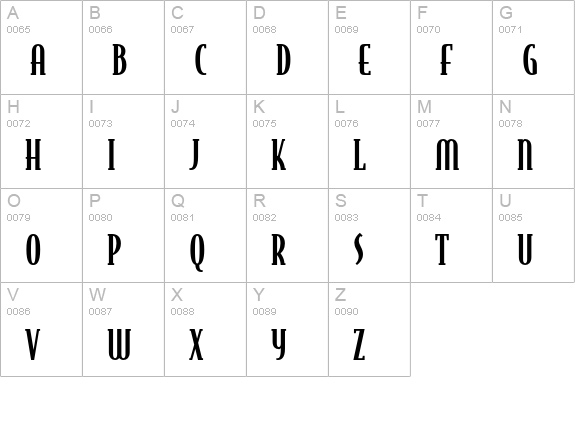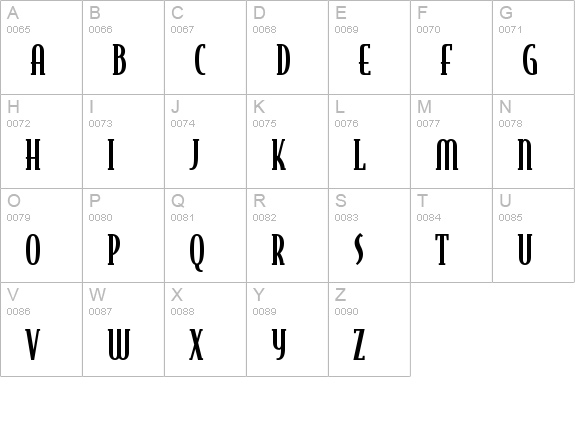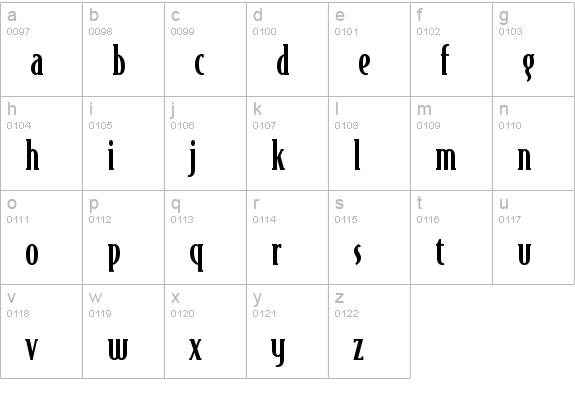
BodegaSerif-MediumOldstyle is a classic and elegant font that exudes sophistication and charm. Its timeless oldstyle design and medium weight make it perfect for a wide range of projects, from invitations to branding materials. The subtle serifs and balanced proportions give this font a sense of refined beauty that is sure to elevate any design. The best part? BodegaSerif-MediumOldstyle is completely free to download at FontsMarket.com, making it accessible to designers and creatives looking for a high-quality font without breaking the bank. Whether you're working on a personal project or a client's branding, this versatile font is a must-have in your collection. Embrace the beauty and versatility of BodegaSerif-MediumOldstyle today and take your designs to the next level.